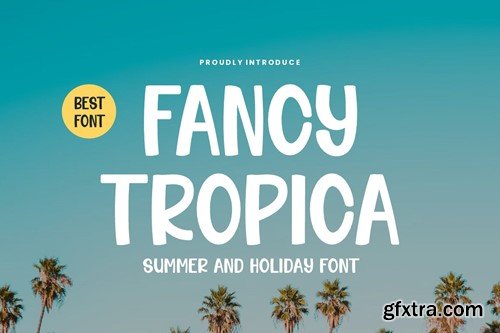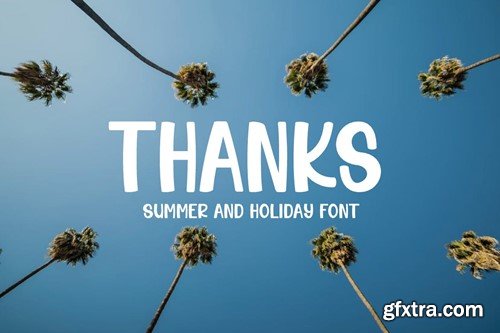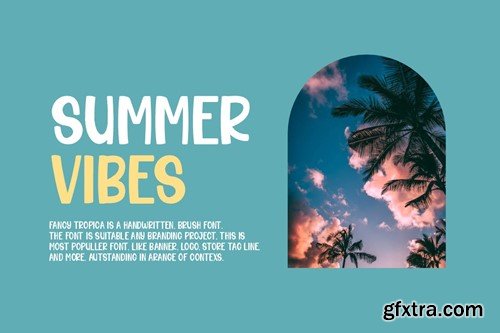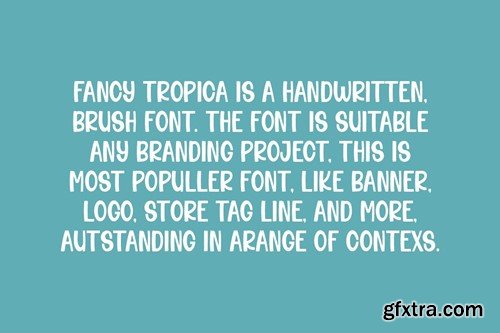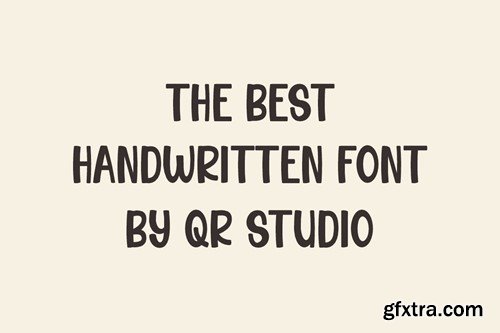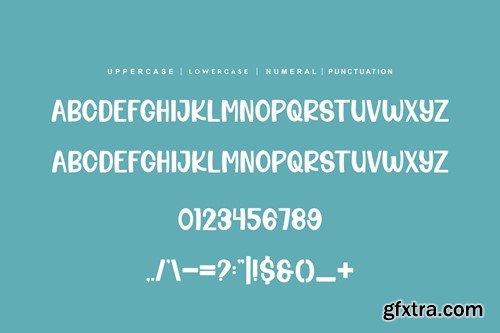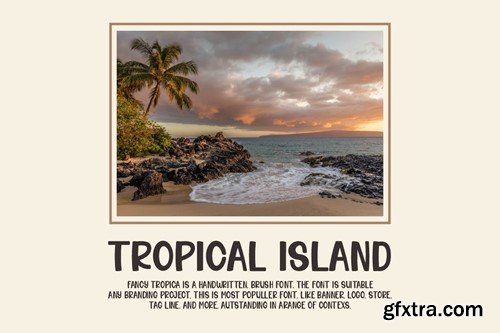
Fancy Tropica - 夏季 & 假日字体 993FE9L
Fancy Tropica - Summer & Holiday Font 993FE9L
Fancy Tropica - Summer & Holiday Font
Fancy Tropica Font is a hand drawn and authentic display font. The font is suitable for any branding project like poster, logo, sport, and many more. Outstanding in a wide range of contexts.